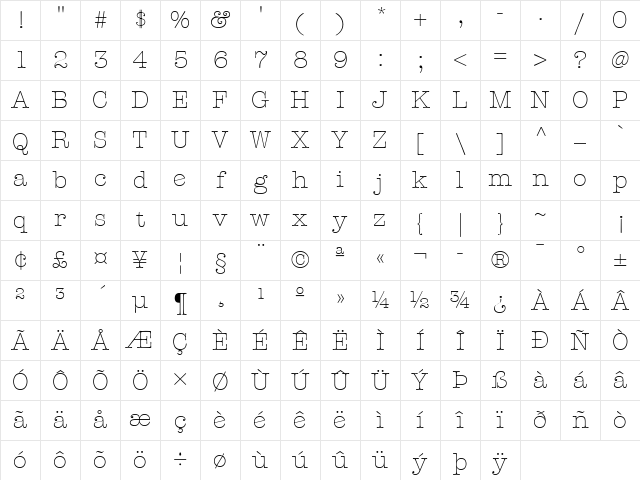
Complete AmericanTypewriter LT LightA Regular glyph index. Displaying only characters natively supported by AmericanTypewriter LT LightA Regular font.
AmericanTypewriter LT LightA uses fixed-width spacing throughout, giving it the structured, systematic character associated with coding environments and technical documentation. Its slender proportions lend an understated elegance to any composition.
Pro Tip: Use AmericanTypewriter LT LightA with slightly increased line-height for extended reading - fixed-width spacing can feel dense in longer passages without extra breathing room.